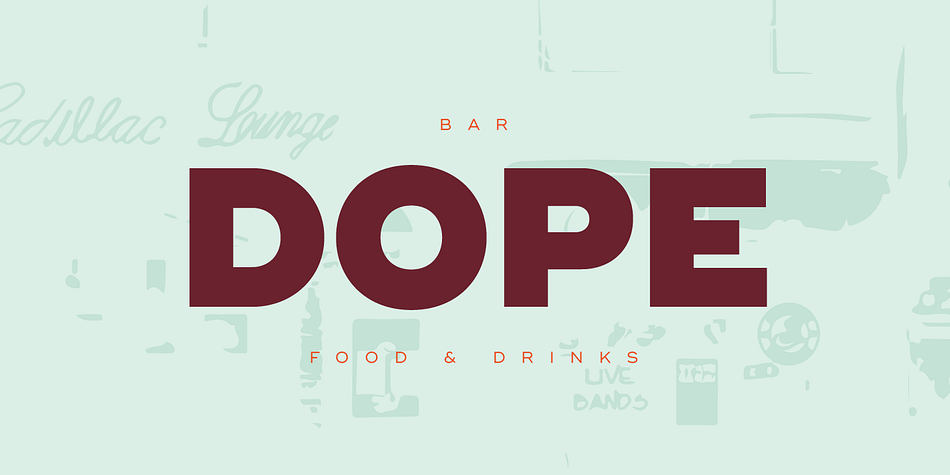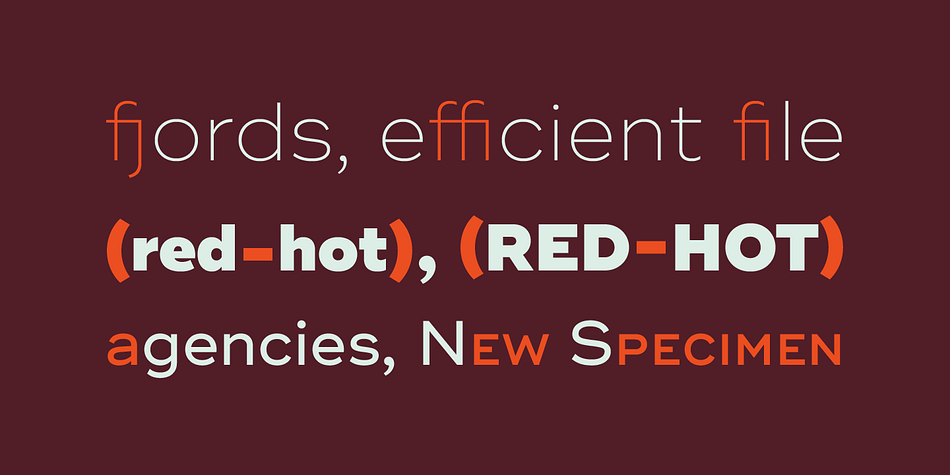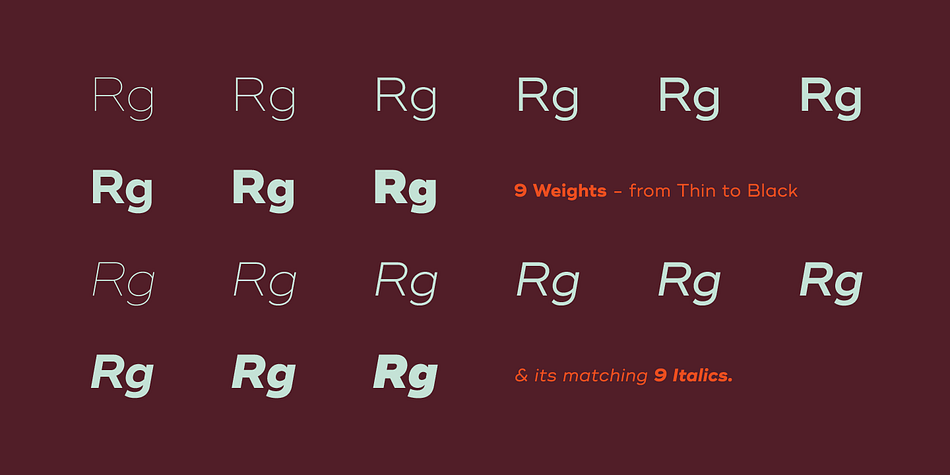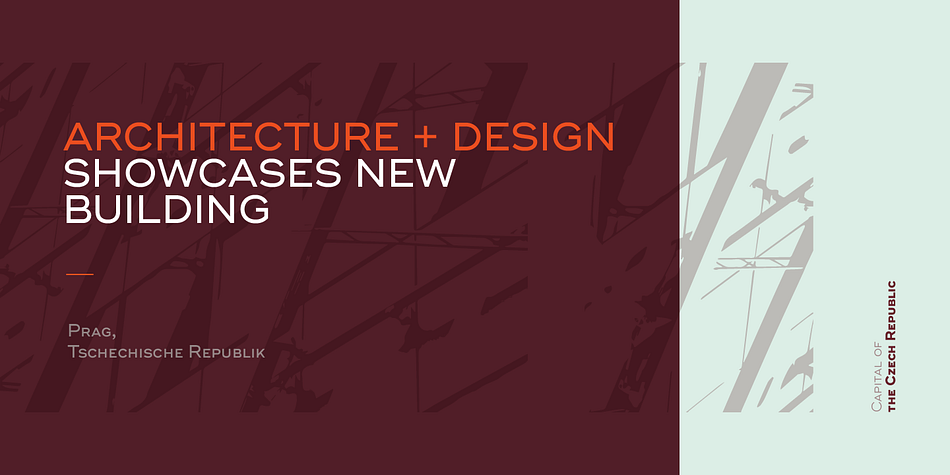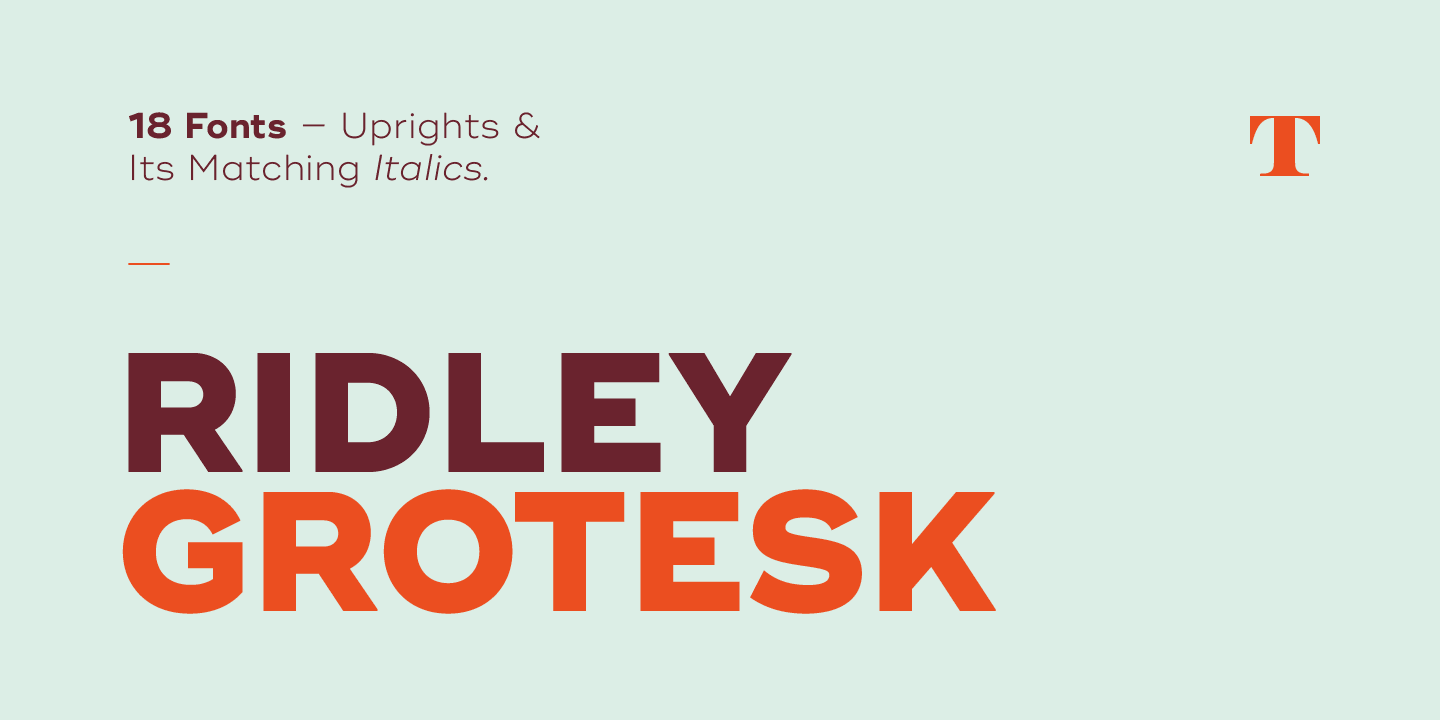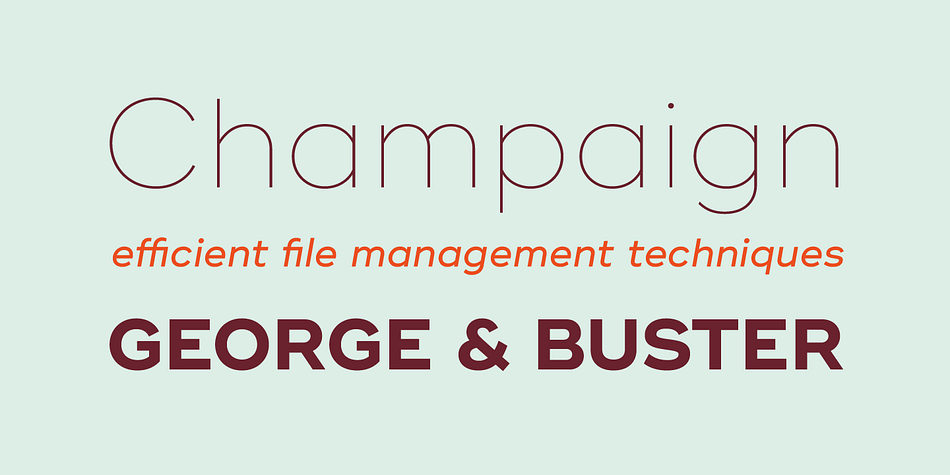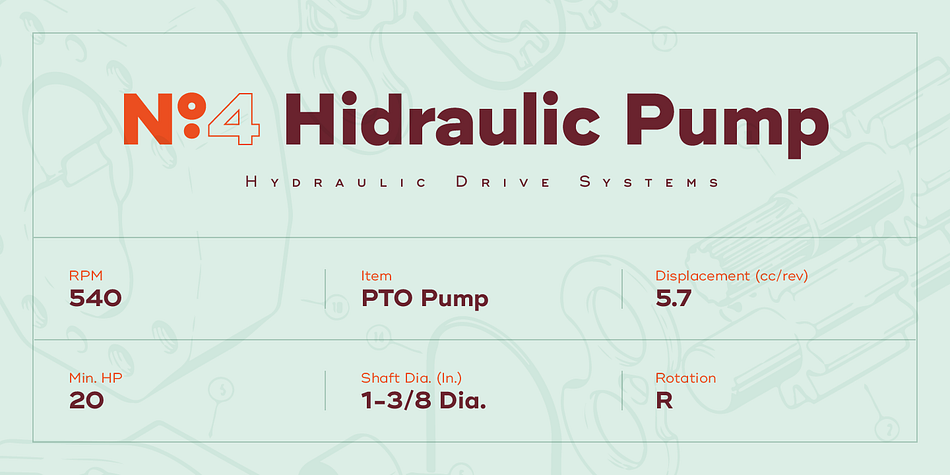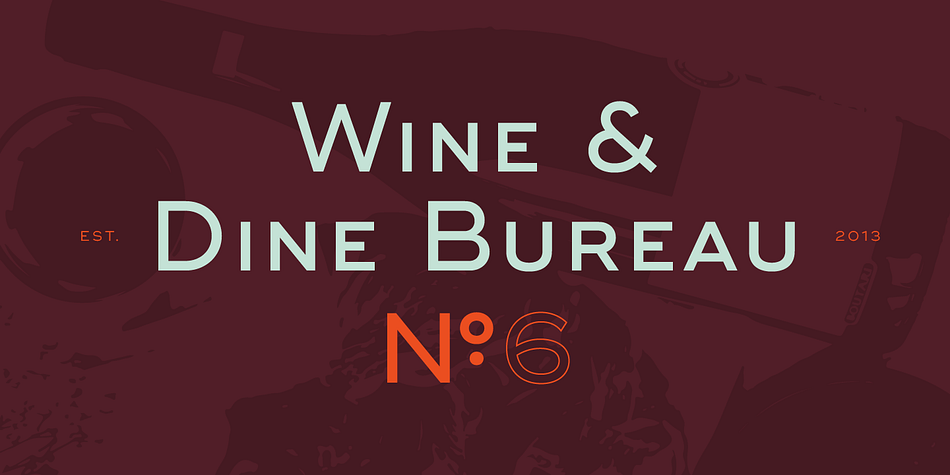
Designed by Radomir Tinkov, Ridley Grotesk is a sans serif font family. This typeface has eighteen styles and was published by Radomir Tinkov.
Ridley Grotesk is a modern sans-serif. It comes in nine weights with matching italics, designed with powerful opentype features in mind. Each weight includes true small capitals, alternate characters, extended language support, ligatures and more. Perfectly suited for graphic design and any display use. It could easily work for web, signage, corporate as well as for editorial design.